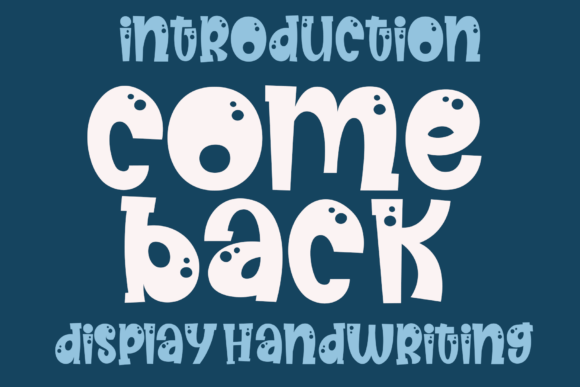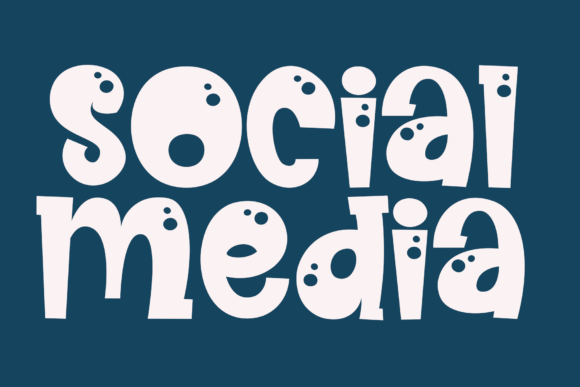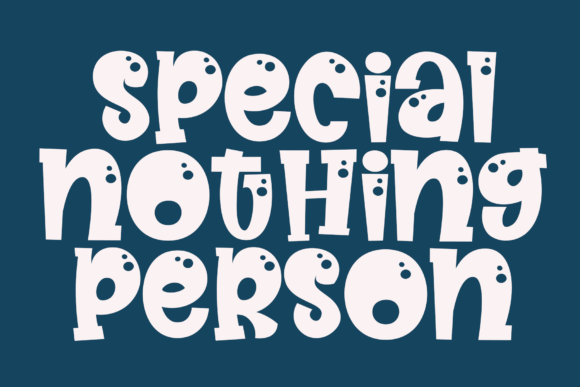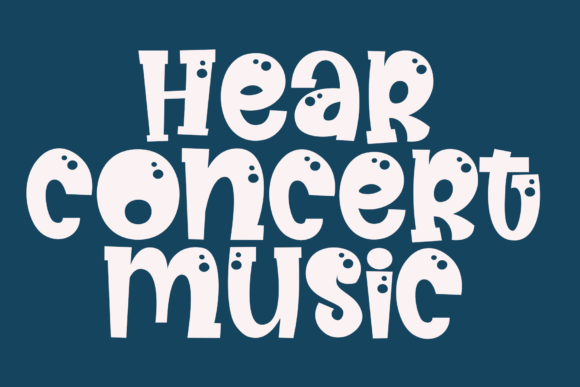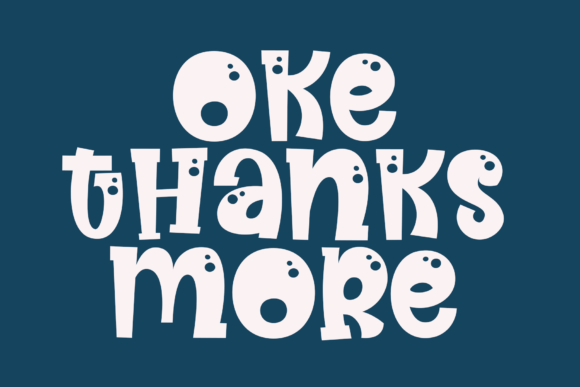
Adding a Dash of Personality to Your Designs
Have you ever found yourself staring at a blank canvas, trying to come up with the perfect idea for a design project? The creative process can be both exhilarating and intimidating, but sometimes all it takes is the right tool to spark inspiration. For designers, fonts are an essential part of bringing a concept to life, and the right choice can make all the difference.
That’s where the Come Back Font comes in – a fun and quirky display font designed to add a touch of personality to your creative projects. Its playful style is perfect for capturing attention and conveying a sense of whimsy, making it a valuable asset for designers looking to add some visual interest to their work.
Key Features of “Come Back Font”
- Unique Characteristics: The font features a unique blend of modern and vintage elements, with intricate details and subtle texture, making it perfect for creative and artistic designs.
Designer Review: Come Back Font
Overall, I’d say that the Come Back Font is a decent addition to any designer’s toolkit. ✨ One of its standout features is its playful, nostalgic vibe, which can add a lot of character to designs that need a bit of whimsy. The font is also highly versatile, working well for both digital and print projects.
Another thing I appreciate about Come Back Font is its extensive character set, which includes a wide range of languages and special characters. This makes it a great option for projects that require a lot of international support.
- ⚠️ The font can be a bit too bold at times, which can make it difficult to read in certain contexts.
- ⚠️ The font’s nostalgic vibe can also be a bit overpowering, making it difficult to pair with other fonts without clashing.
Overall, I’d recommend the Come Back Font for designers who are looking for a fun, versatile font that can add some personality to their projects. However, it’s worth keeping in mind its limitations and using it in moderation to avoid overkill.
Tips for Getting the Most Out of “Come Back Font”
For best results, use “Come Back Font” in bold or italic styles to add emphasis to your text. You can also experiment with different font sizes and colors to create a visually appealing design.
“Come Back Font” is ideal for use in headings, titles, and subtitles. It’s also great for creating eye-catching social media posts, presentations, and marketing materials.